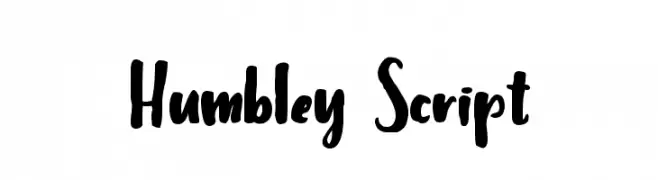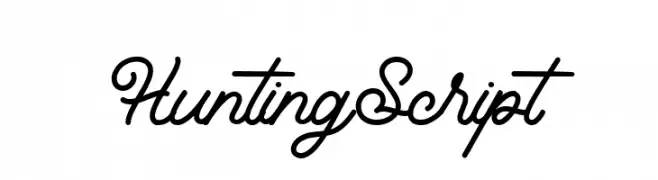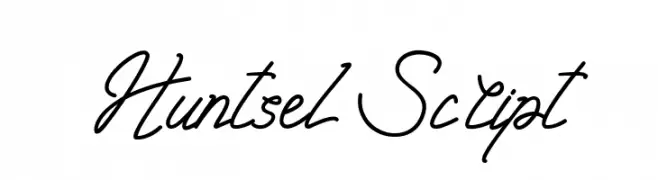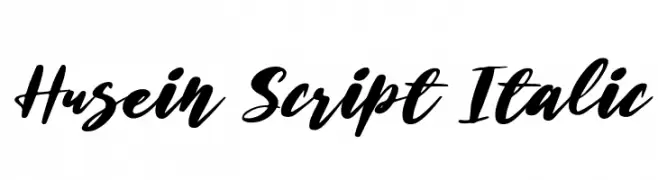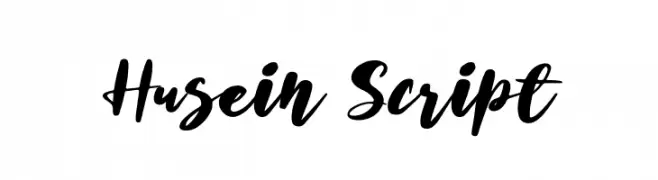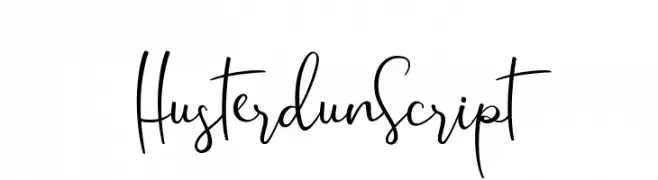
An elegant, flowing script font with graceful loops and swashes.
A bold, flowing script font with a modern, handwritten aesthetic.
A bold, hand-drawn script font with a playful and dynamic style.
A graceful and flowing script font with interconnected characters.
A flowing cursive script font with elegant, interconnected letters.
A fluid, elegant script font with connected strokes and a handwritten feel.
A bold, flowing script font with elegant, interconnected strokes.
A bold, flowing script font with an italic slant and a handwritten feel.
A lively and elegant script font with flowing, dynamic curves.